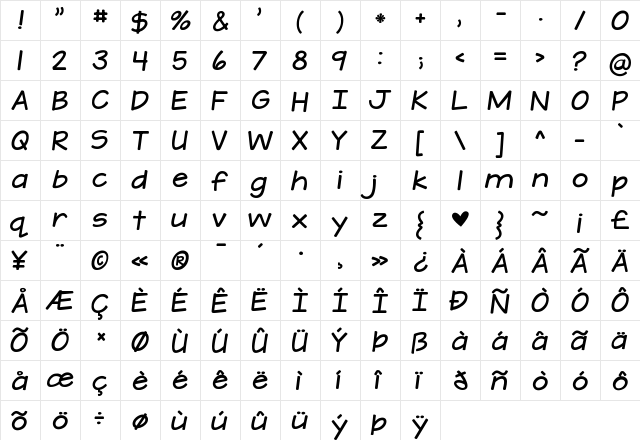
KG A Teeny Tiny Font Regular
| Foundry | Kimberly Geswein |
| Designer | Kimberly Geswein |
Design Context for KG A Teeny Tiny Font Typeface
KG A Teeny Tiny Font is a composed and adaptable typeface that performs quietly and consistently across a wide range of design contexts.